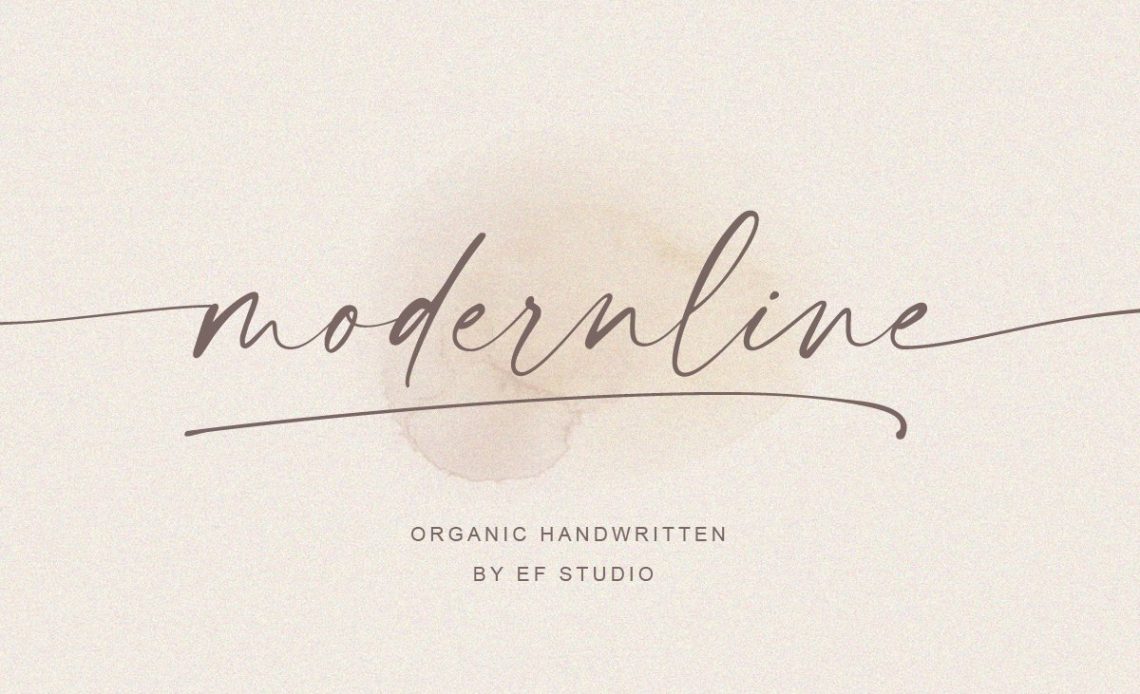
Looking for a font that is perfect for branding, invitations, promotions, or product packaging? Look no further than Modernline - an organic handwritten font that is modern, simple, and authentic. Created by Luthfi Fauzi, this font family features both lowercase and uppercase letters, numerals and punctuation, multilingual symbols, lowercase beginning and ending swashes, ligatures, and extra swashes to give your designs that extra bit of flair.
This font is versatile and can be used for a variety of design needs, but what sets it apart is its unique, authentic feel. It's perfect for adding that personal touch to your projects and making them stand out.